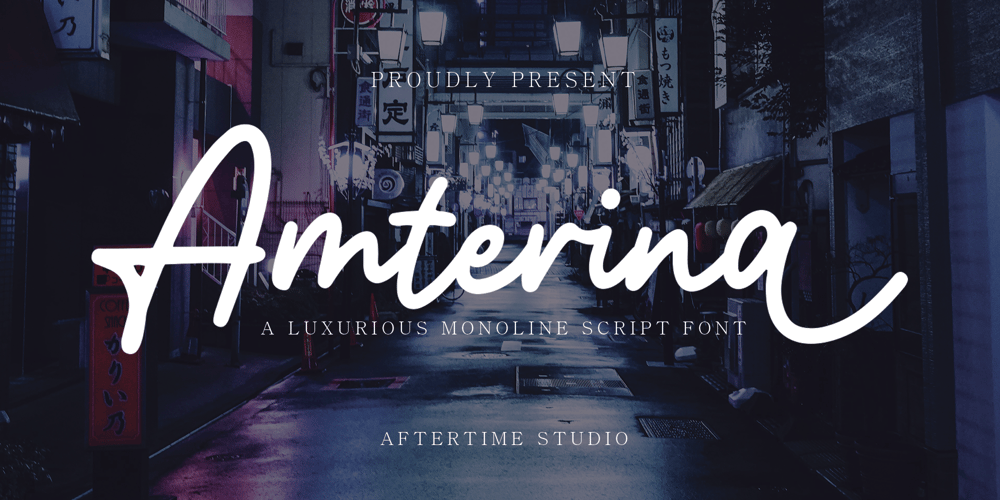
Amterina Font Family was designed by Moh. Nor Miftahul Huda and published by Aftertime Studio. Amterina contains 1 styles and family package options. Amterina Monoline Script FontThe Amterina font is a simple font, comes with alternate font and some ligatures. We keep this font looks elegant, readable, stylish, and catchy. You can use this font for watermark on photography, signature or signature logo design, quotes, album cover, business card, and many other design project. The variations will make you smile and happy. Just pick the variation you like best. NO DOUBT ! The font has :Stylistic alternate Ligature, and Multilingual SupportThankyou..!!